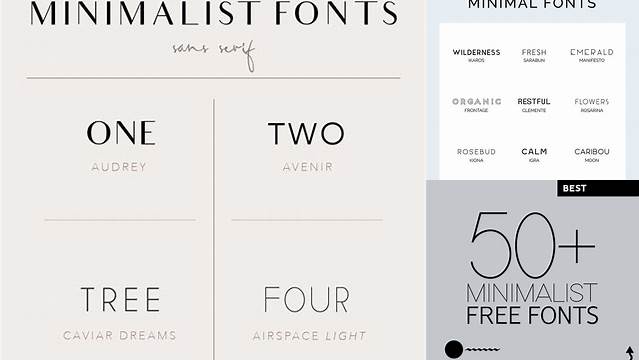
Free Minimalist Regular Fonts: Your Best Choices
Finding the perfect font can be a game-changer for your design projects. When it comes to minimalist design, a clean and regular font is often the best choice. Guys, choosing the right font can elevate your work from basic to brilliant! Let's dive into the world of free minimalist regular fonts and explore some fantastic options that can make your projects shine.
1. Understanding Minimalist Font Aesthetics
Minimalist design is all about simplicity and clarity. So, when we talk about minimalist fonts, we're looking at fonts that are clean, uncluttered, and easy to read. These fonts often feature simple geometric shapes, consistent line weights, and a lack of excessive ornamentation. Think of fonts that whisper elegance rather than scream for attention. The core idea is to convey your message effectively without any unnecessary distractions. Minimalist fonts are versatile, working well in various contexts, from website headers to body text in documents. For example, a clean sans-serif font can make your website look modern and professional, while a minimalist serif font can bring a touch of sophistication to your print materials. Remember, the goal is to create a visual hierarchy that guides the reader's eye and makes your content more accessible. A well-chosen minimalist font can be the silent hero of your design, enhancing readability and overall aesthetic appeal.
2. Top Free Minimalist Sans-Serif Fonts
When you're aiming for a modern and clean look, sans-serif fonts are your best friend. These fonts lack the small decorative strokes (serifs) found in traditional fonts, making them appear more streamlined and contemporary. Some standout options in the free minimalist sans-serif category include Roboto, Open Sans, and Lato. Roboto, for example, is a Google font that's incredibly versatile and readable across different platforms and devices. It has a dual nature with both mechanical and friendly forms, making it a great choice for both digital and print projects. Open Sans is another excellent choice known for its neutral yet friendly appearance, making it perfect for body text. Lato, designed by Łukasz Dziedzic, has semi-rounded details that give it a warm feel while maintaining a minimalist aesthetic. These fonts are not only visually appealing but also highly functional. Their clarity and legibility make them ideal for a wide range of applications, from website design to presentations and marketing materials. Choosing the right sans-serif font can instantly give your project a polished and professional look, aligning perfectly with minimalist design principles.
3. Exploring Minimalist Serif Fonts for Free
Serif fonts, with their small decorative strokes, can bring a touch of traditional elegance to your minimalist designs. While sans-serif fonts often dominate the minimalist landscape, a well-chosen serif font can add sophistication and character without sacrificing the clean aesthetic. Some excellent free minimalist serif fonts include Playfair Display, Merriweather, and Arvo. Playfair Display, for instance, is a transitional serif typeface with a high contrast and delicate structure, perfect for headlines and titles. Merriweather, designed by Sorkin Type, is another great option, specifically crafted for on-screen reading, making it ideal for body text. Arvo, with its geometric slab-serif design, brings a modern twist to the classic serif style. These fonts demonstrate that serif fonts can be just as minimalist as their sans-serif counterparts when used thoughtfully. The key is to select fonts with clean lines and a balanced structure. Incorporating a minimalist serif font can add a layer of depth and visual interest to your design, making it stand out while maintaining a sense of understated elegance. Guys, don't be afraid to experiment with serif fonts in your minimalist projects!
4. Using Regular Font Weights Effectively
The weight of a font plays a crucial role in its overall impact and readability. Regular font weights, which are neither too bold nor too light, strike a perfect balance for most design applications. Using regular font weights effectively ensures that your text is clear and easy to read, whether it's on a screen or in print. This is especially important in minimalist design, where clarity is paramount. A well-chosen regular font weight can prevent your text from appearing too heavy or too faint, maintaining a clean and consistent visual appearance. For body text, regular weights are almost always the best choice, as they provide optimal readability for extended periods. In headings and subheadings, regular weights can also be used effectively, particularly when paired with subtle variations in size or spacing to create visual hierarchy. The key is to ensure that the font weight complements the overall design, enhancing rather than detracting from the message. Think of regular font weights as the backbone of your typography, providing a solid foundation for your design. Using them wisely can significantly improve the user experience and the overall aesthetic appeal of your project.
5. Pairing Minimalist Fonts for Maximum Impact
Font pairing is an art, and mastering it can significantly elevate your design. When it comes to minimalist design, the goal is to create a harmonious visual experience by selecting fonts that complement each other without clashing. A common strategy is to pair a sans-serif font with a serif font. For example, you might use a clean sans-serif font like Open Sans for body text and a sophisticated serif font like Playfair Display for headings. This combination provides a visual contrast that is both pleasing and effective. Another approach is to use different weights of the same font family. For instance, you could use a regular weight for body text and a bold weight for headings, maintaining a consistent visual style while creating clear distinctions. The key to successful font pairing is balance and contrast. You want to choose fonts that work well together, creating a cohesive and visually appealing design. Avoid using too many different fonts in a single project, as this can lead to a cluttered and confusing look. Instead, focus on selecting a few high-quality fonts that reflect your brand's personality and enhance your message. Guys, font pairing is where your creativity can truly shine!
7. Implementing Fonts in Web Design Projects
Implementing fonts in web design requires a bit of technical know-how, but it's essential for creating a visually appealing and user-friendly website. The first step is to choose web-safe fonts, which are fonts that are likely to be installed on most users' computers. This ensures that your website will display correctly across different devices and browsers. However, with the advent of web fonts, you're no longer limited to web-safe fonts. Services like Google Fonts and Adobe Fonts allow you to easily embed custom fonts into your website using CSS. To implement fonts in your web design, you'll typically use the CSS font-family property. You can specify multiple fonts as fallbacks, in case the user's browser doesn't support the primary font. It's also important to consider font loading times, as large font files can slow down your website. Optimizing your fonts for the web can improve your site's performance and enhance the user experience. Guys, choosing the right fonts and implementing them effectively can make a huge difference in the overall look and feel of your website.
8. Using Fonts in Print Design Effectively
When it comes to print design, selecting the right fonts is just as crucial as it is for web design. However, there are some key differences to consider. In print, you have more control over how fonts are rendered, as you're not limited by the constraints of web browsers and operating systems. This means you can use a wider variety of fonts without worrying about compatibility issues. However, it's still important to choose fonts that are legible in print, especially for body text. Serif fonts are often preferred for print because their serifs can help guide the reader's eye, making long blocks of text easier to read. However, minimalist sans-serif fonts can also work well in print, particularly for headlines and titles. When preparing your print design, it's essential to ensure that your fonts are properly embedded in the document. This prevents font substitution issues when the document is opened on a different computer. You should also pay attention to font sizes and line spacing to ensure that your text is easy to read. Using fonts effectively in print design can create a polished and professional look for your brochures, flyers, and other printed materials.
9. Font Licensing and Usage Rights
Understanding font licensing and usage rights is crucial for designers to avoid legal issues. Most fonts are protected by copyright, and their usage is governed by licensing agreements. These agreements specify how the font can be used, including whether it can be used for commercial projects, embedded in websites, or modified. Free fonts often come with different types of licenses, ranging from open-source licenses that allow for almost any use to more restrictive licenses that limit commercial use. It's essential to read the license agreement carefully before using a font, especially in commercial projects. Some fonts may require attribution, meaning you need to give credit to the font designer or foundry. Others may have restrictions on embedding in certain types of documents or websites. If you're unsure about the licensing terms, it's always best to contact the font designer or foundry directly. Using fonts legally not only protects you from legal liabilities but also supports the designers and foundries who create these valuable resources. Guys, always respect font licensing and usage rights!
30. The Future of Minimalist Font Design
The future of minimalist font design looks bright, with ongoing innovations and trends shaping the way we use and interact with typography. Variable fonts, as discussed earlier, are a significant development, offering designers unprecedented flexibility and control over font styles. As technology continues to evolve, we can expect to see even more advanced font technologies emerge, such as color fonts and 3D fonts. Minimalist design principles are likely to remain influential in font design, with a continued emphasis on clarity, simplicity, and readability. Accessibility will also be a key consideration, with designers focusing on creating fonts that are easy to read for people with visual impairments. The rise of digital platforms and mobile devices will continue to shape font design, with a focus on creating fonts that are optimized for on-screen reading. Guys, the world of minimalist font design is constantly evolving, offering exciting possibilities for the future. Minimalist regular font choices will continue to play a vital role in design, ensuring clarity and elegance in visual communication.